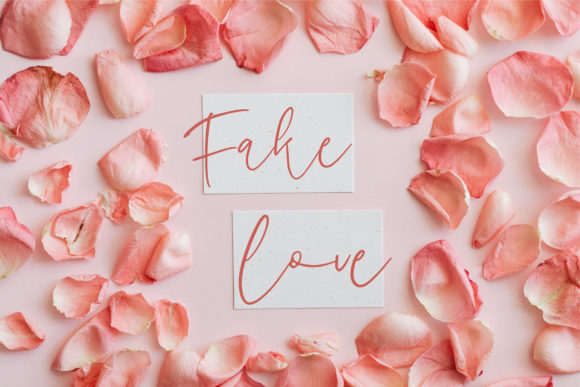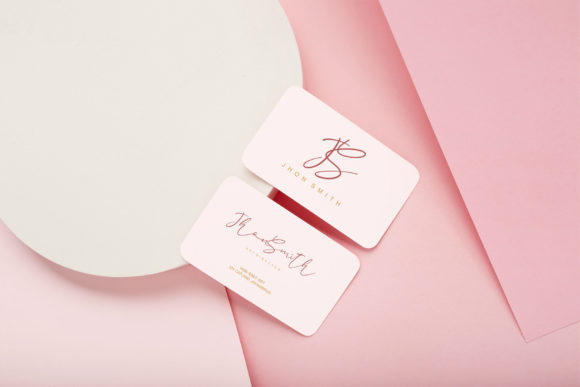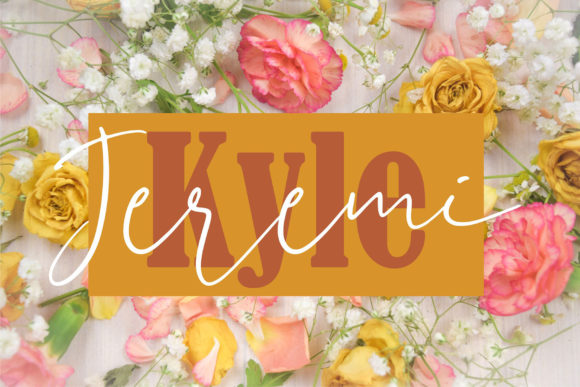
Introduction to Kandita Font
Kandita is a modern and flowing handwritten font.
Fall in love with its incredibly versatile style and use it to create gorgeous wedding invitations, beautiful stationary art, eye-catching social media posts, and much more .
Kandita Font offers exceptional quality and versatility, making it a valuable addition to your design toolkit. Whether you’re creating for personal projects or commercial use, Kandita Font delivers professional results.